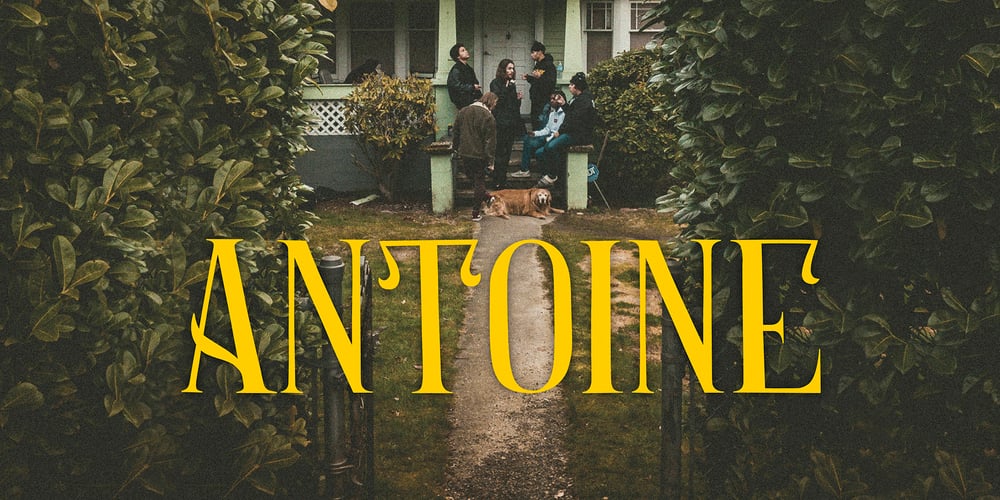
Antoine Font Family was designed by Anastasia Kuznetsova and published by Anastasia Kuznetsova. Antoine contains 4 styles and family package options. Introducing Antoine — is a vintage retro display typeface. The three font combinations I launched are very compatible if for the victorian classic design concept. As for if the font was worn by itself, without combinations are also brave!! In addition to many get unique character, luxury, brave and elegant. You also have a collection ornament, very suitable if in the gradient. This font is also very easy to use with other design programs or with out design program.Antoine Typeface is perfect for beverage label design project. coffee label. logotype design, badges, classic wedding concept. victorian design concept and so on. gig poster, letterhead, droop cap, titles, and any artworks. Now it’s your time to go crazy and explore the uniqueness of this typeface!!I invite you to familiarize yourself with the preliminary images and hope that you will be imbued with my vision of this creative font, which, I am sure, will be suitable for all the interesting projects you are working on.Fonts can be opened and used in any software that can read standard fonts, even in MS Word. No special software is required to get started.It is recommended to use it in Adobe Illustrator or Adobe Photoshop.Made with love and magic ♡Thank you for reading it, and do not hesitate to send me a message if you have any questions!~ Anastasia